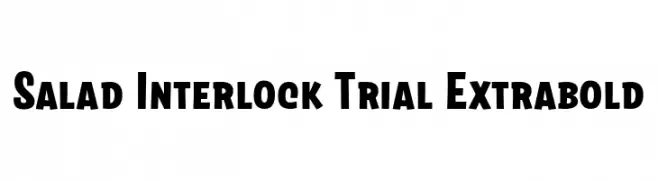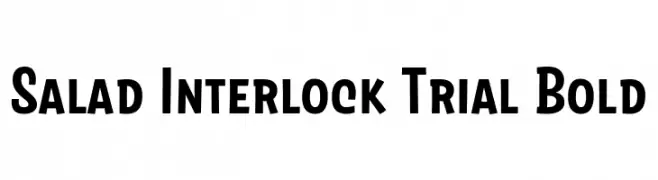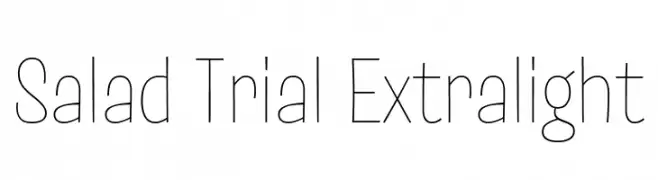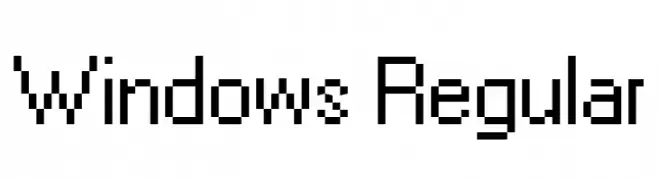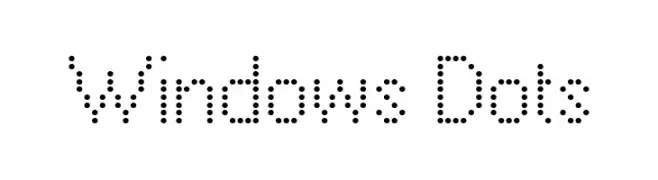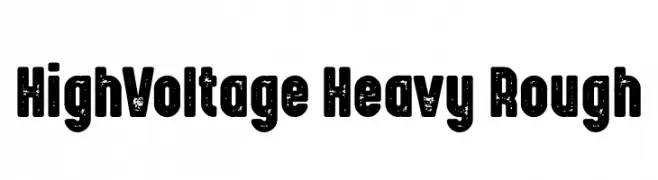
A sleek, minimalist font with thin, elongated letterforms and a modern aesthetic.
A bold, modern font with thick strokes and tight spacing, ideal for headlines.
A bold, modern sans-serif font with rounded edges and consistent weight.
A bold, robust font with thick strokes and a playful touch.
A bold, modern font with strong strokes and rounded forms.
A clean, minimalist font with thin, uniform strokes and a modern aesthetic.
A pixelated, blocky font with a retro digital style.
A pixelated, geometric outline font with a retro digital aesthetic.
A modern, dotted font with a digital and futuristic appearance.
A bold, heavy font with a rough, distressed texture for a rugged, industrial look.